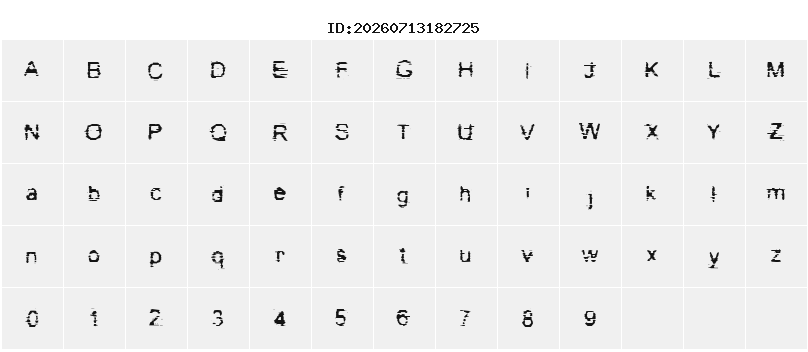
Bad Cargo 2.0 Preview
• Font Name: Bad Cargo 2.0
• Font ID: MR.FISK: Bad Cargo 2.0: 2001
• Full Font Name: Bad Cargo 2.0
• Version: 2001; 1.0, a bad release
• PostScript Name: BadCargo2.0
• Character Count: 95
About Bad Cargo 2.0.ttf
Bad Cargo 2.0.ttf is a modern, elegant sans-serif font designed for ultimate readability and visual harmony. Perfect for branding, headlines, web design, and print materials.